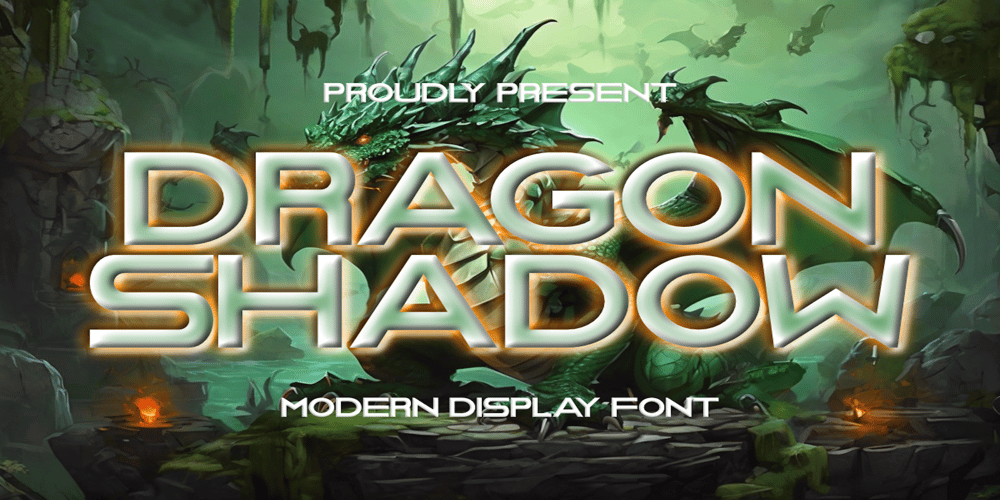
Dragon Shadow Font Family was designed by Muhammad Yafinuha and published by Masyafi Studio. Dragon Shadow contains 1 styles and family package options. Dragon Shadow is an authentic modern display font. This font is very suitable for the needs of the Games and Esports Industry! A font that is very suitable for crafts, labels, quotes, SVG files, decorations, labels, logotypes, book covers, t-shirts, web, posters, stickers, wall art, or other ideas. A font suitable for Crafters and Graphic Designers. This font is also suitable for Social Media. Compatible with various tools such as Photoshop or Silhouette Design Project.